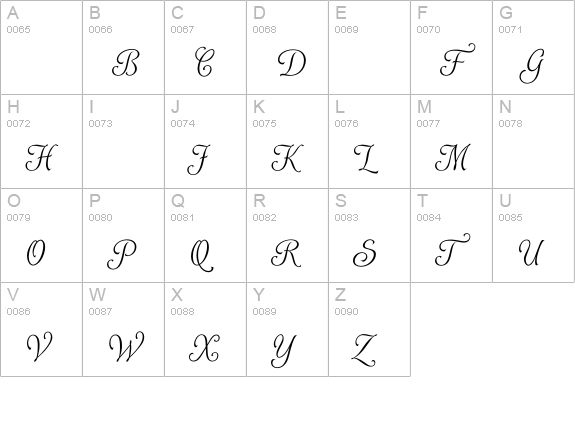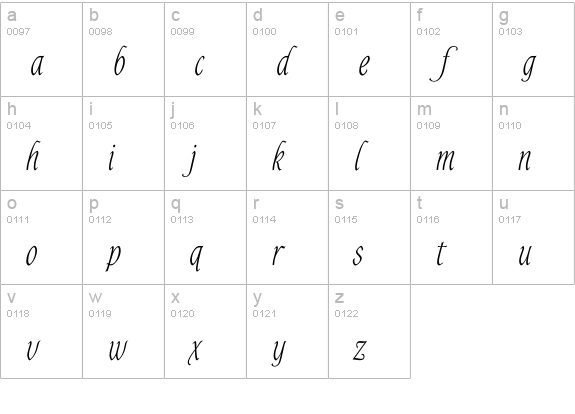
AlysLight Font Details
AlysLight font exudes elegance and sophistication with its sleek and modern design. The clean lines and smooth curves make it perfect for a wide range of design projects, from branding to invitations to signage. This versatile font is sure to make your text stand out and leave a lasting impression on your audience. The best part? AlysLight is completely free to download at FontsMarket.com, making it accessible to designers of all levels. Whether you're a seasoned pro or just starting out, this font is a must-have addition to your collection. Don't miss out on the opportunity to elevate your designs with the exquisite beauty of AlysLight font. Download it today and let your creativity shine!